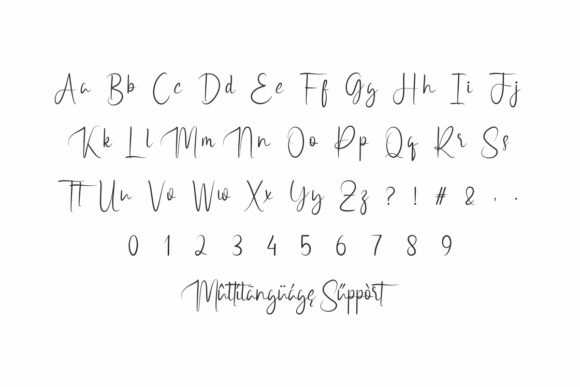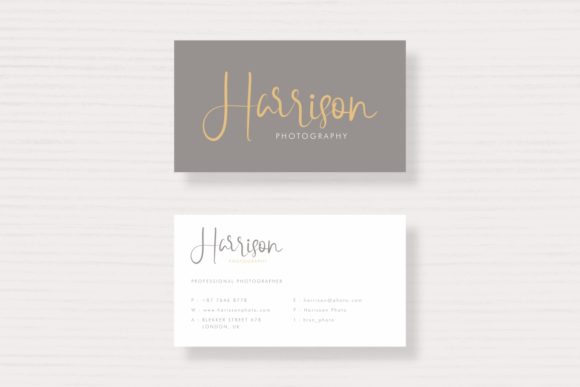
Greatness Font
db-ku.com - Script & Handwritten -- Greatness is a beautiful handwritten font. The font is perfectly suited for a wide variety of projects such as: wedding, events, real estate, architect, florist, gardening, makeup artist, travel, hotel, musician and more.